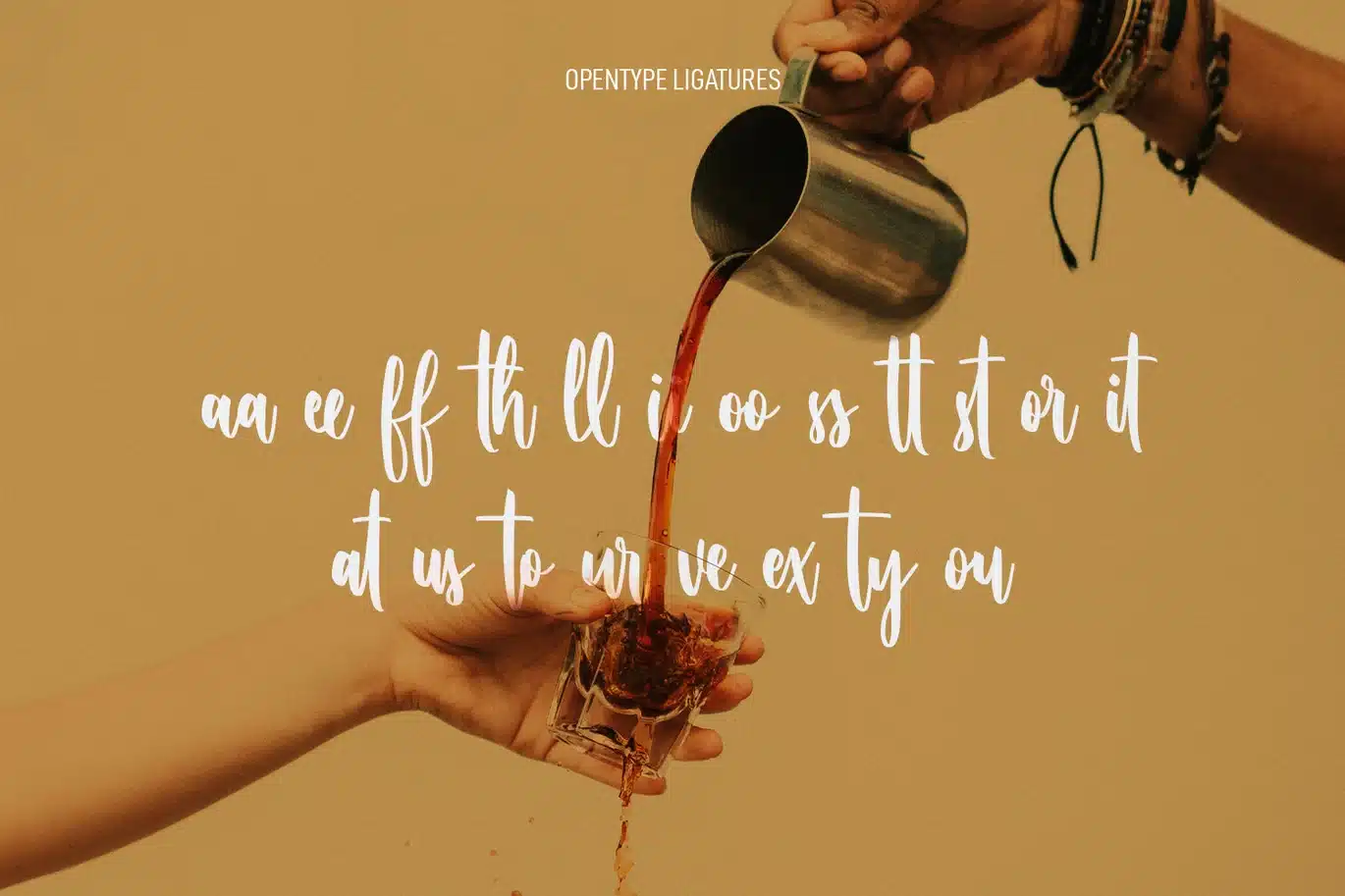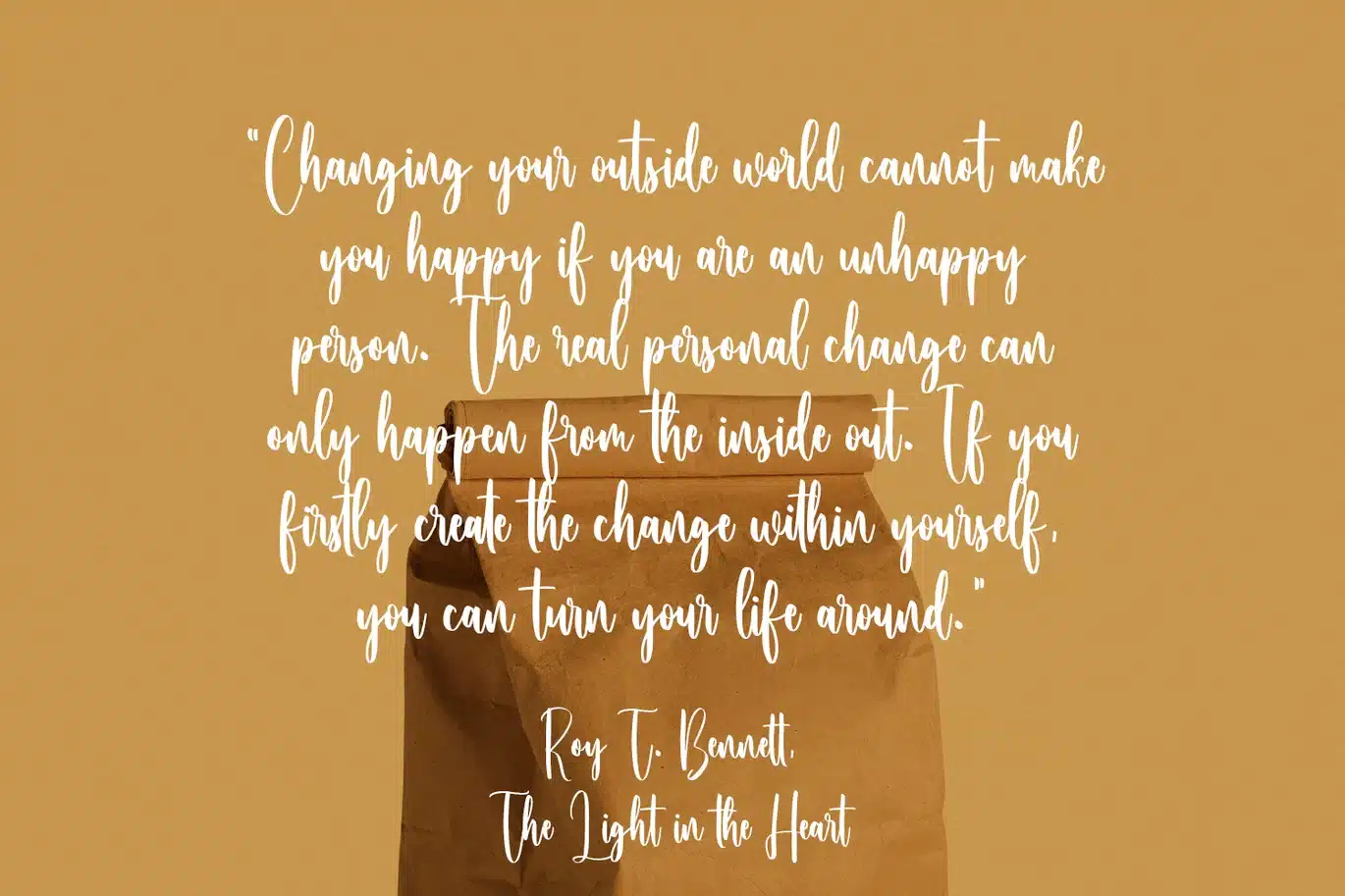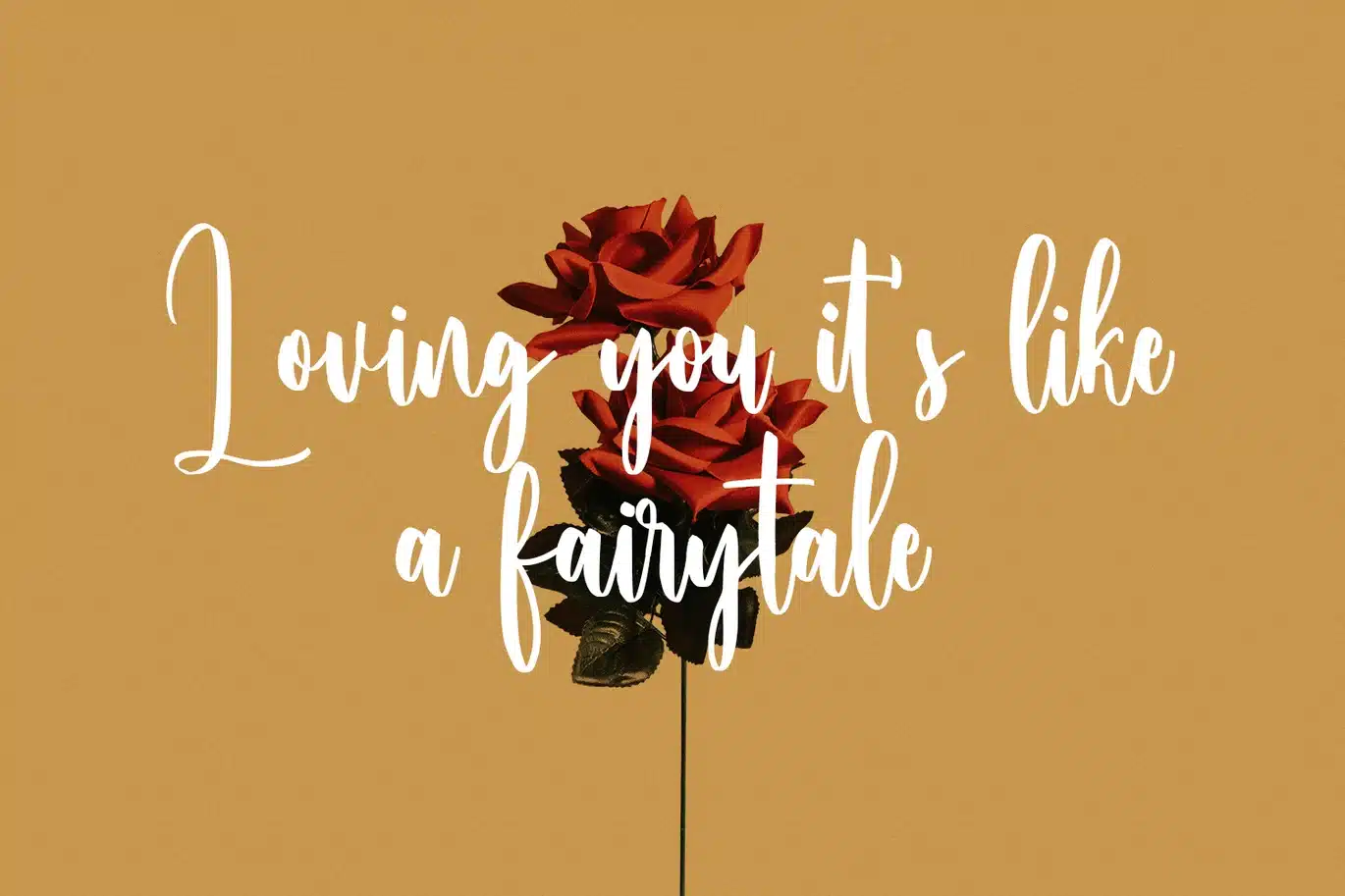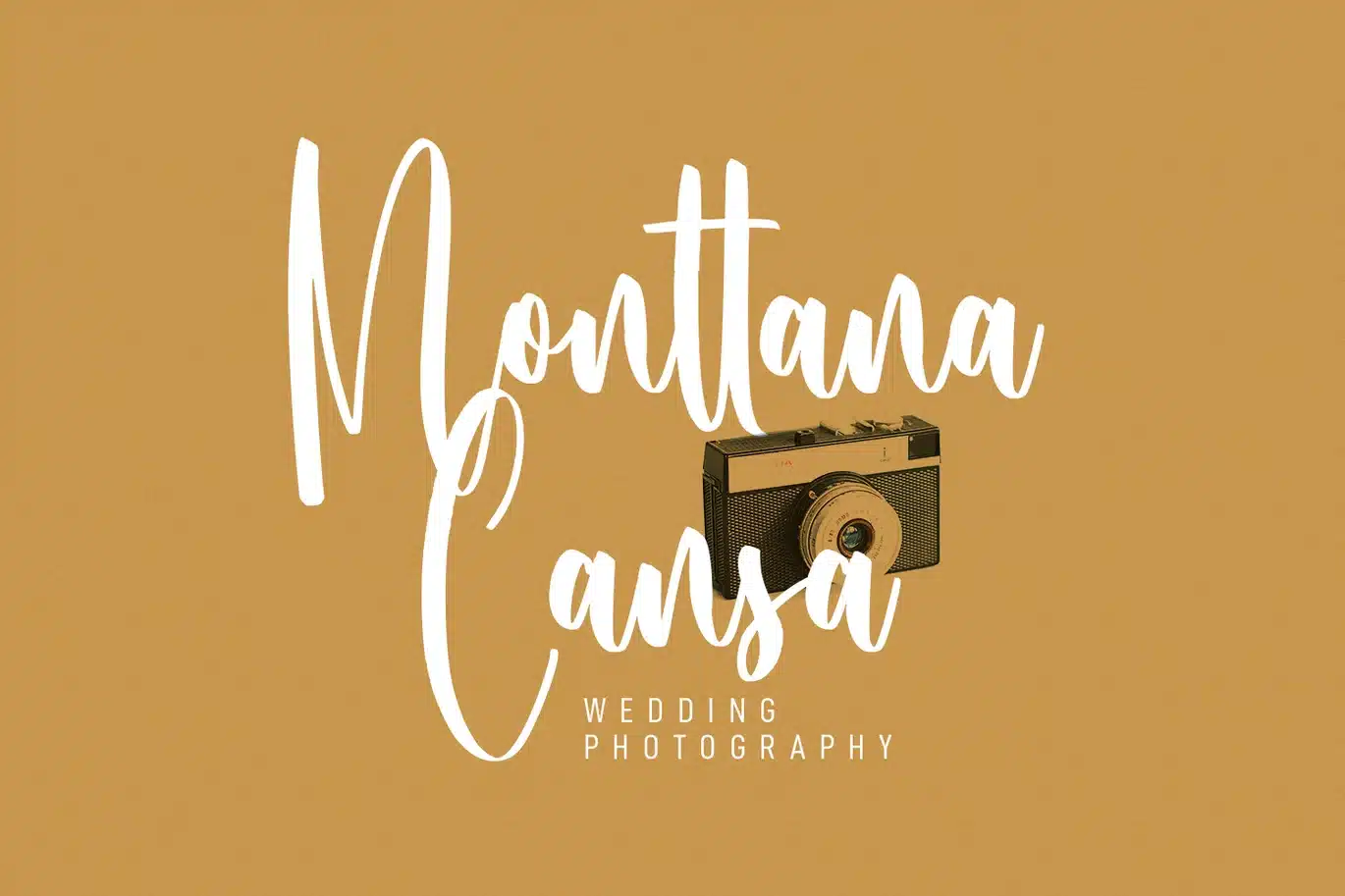
Coffee Tables Script Font
"Coffee Tables" is a signature script font. With regular contrast stroke, fun character with a bit of ligatures. To give you an extra creative work. "Coffee Tables" font support multilingual more than 100+ language. This font is good for logo design, Social media, Movie Titles, Books Titles, a short text even a long text letter and good for your secondary text font with sans or serif. Make a stunning work with "Coffee Tables" font.